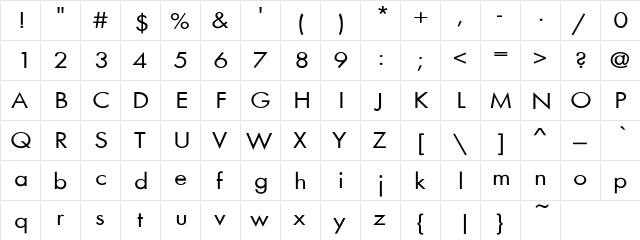
BelmarExt-Norma Regular
Design Context for BelmarExt-Norma Typeface
BelmarExt-Norma is a composed and adaptable typeface that performs quietly and consistently across a wide range of design contexts.